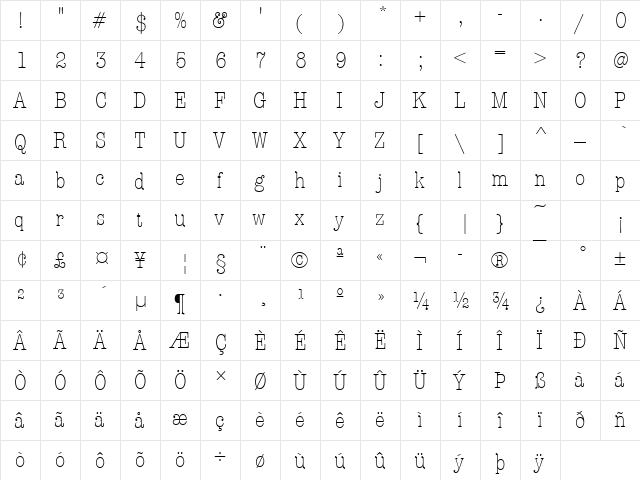
AmericanTypItcTLigCon Regular Font Preview
AmericanTypItcTLigCon Regular
Design Context for AmericanTypItcTLigCon Typeface
AmericanTypItcTLigCon offers clean, dependable letterforms without strong stylistic allegiance, making it a practical choice for designers who need flexibility.